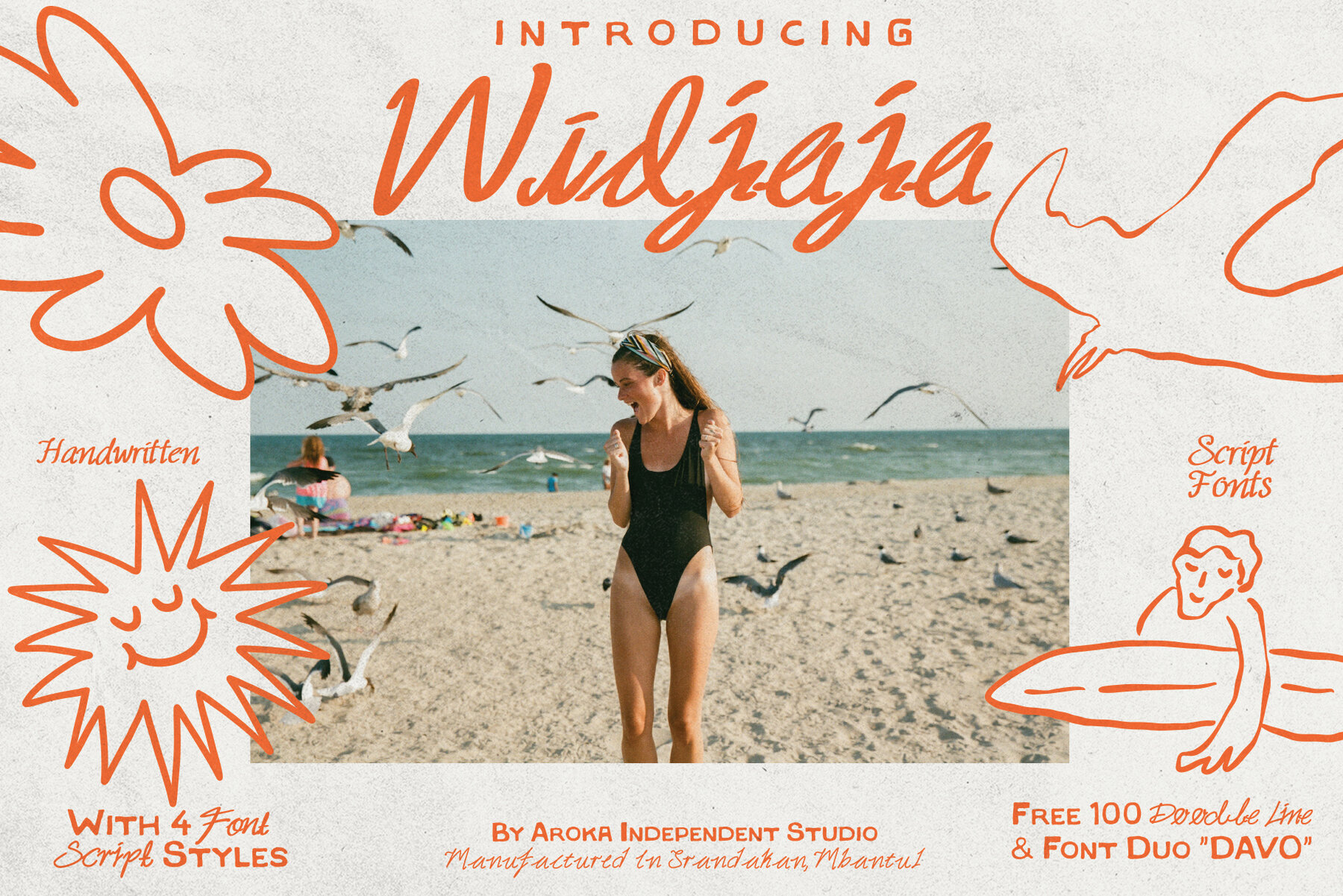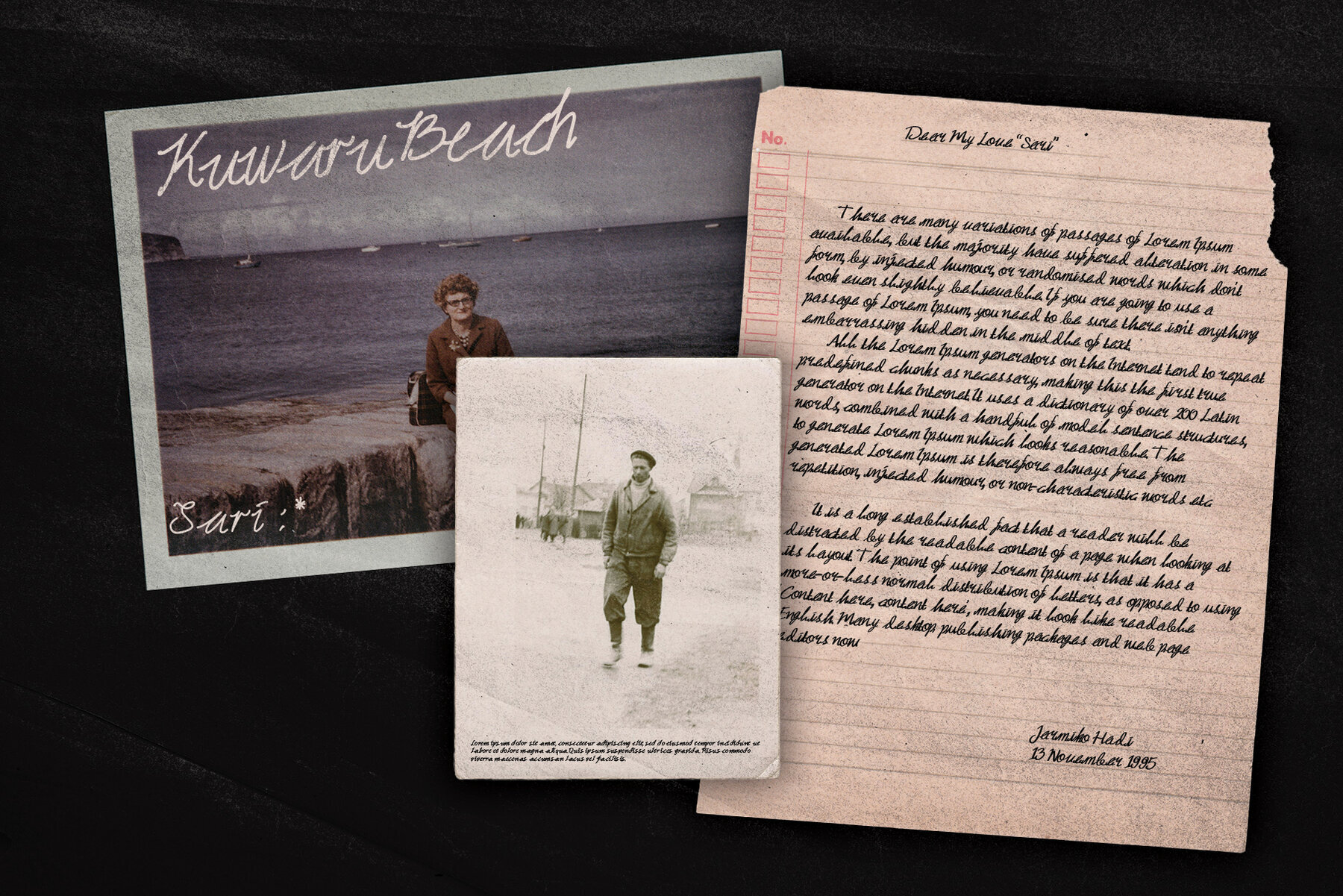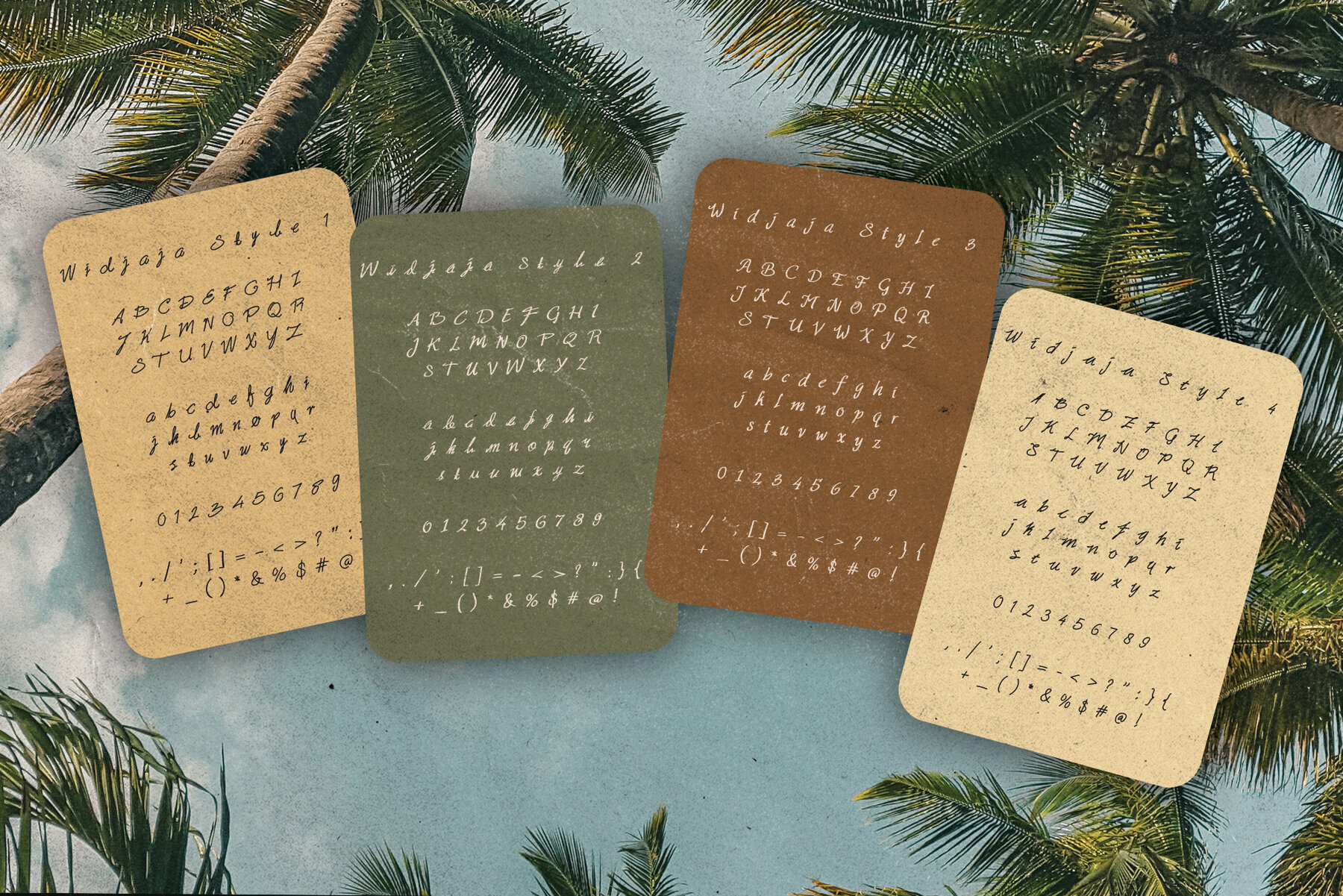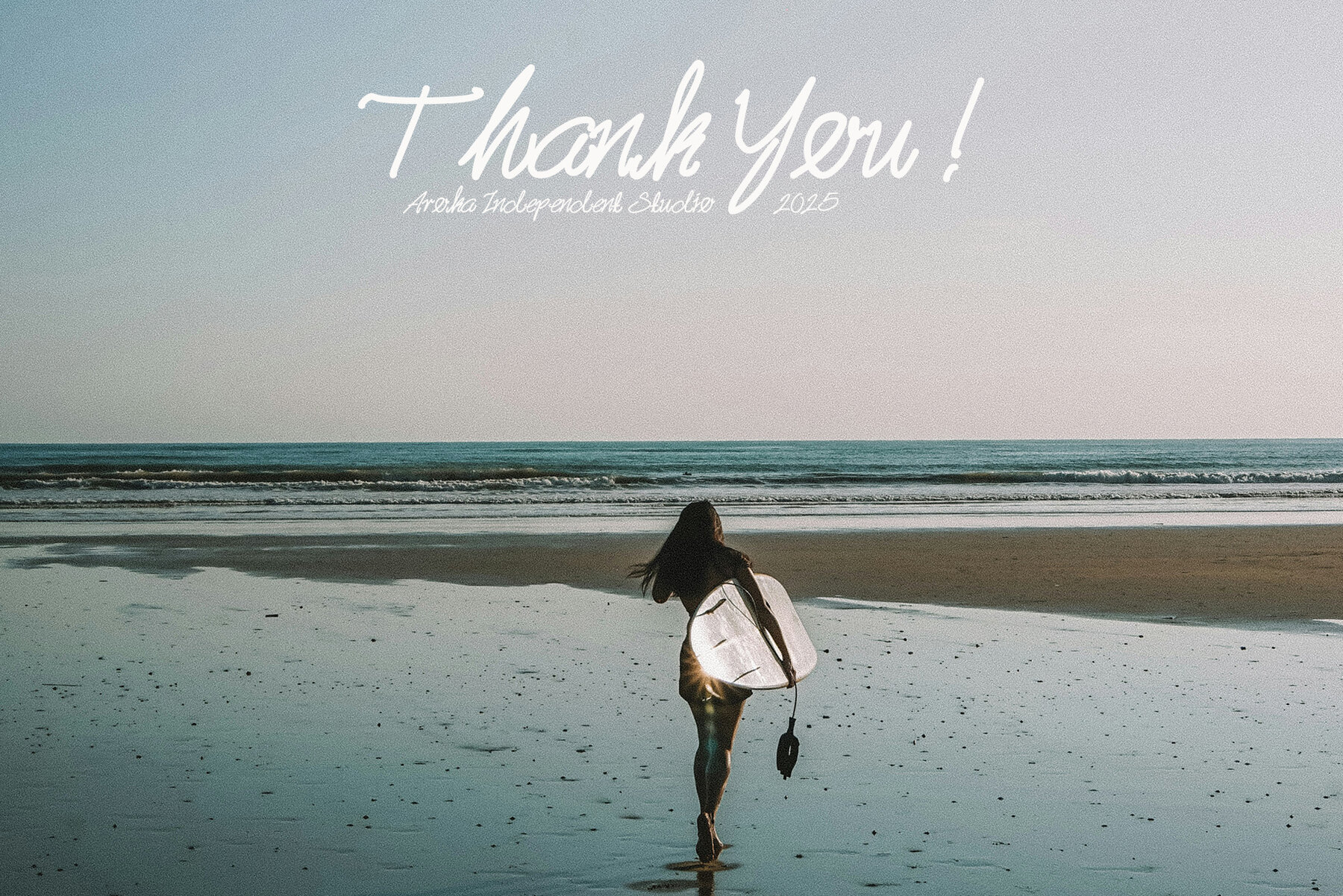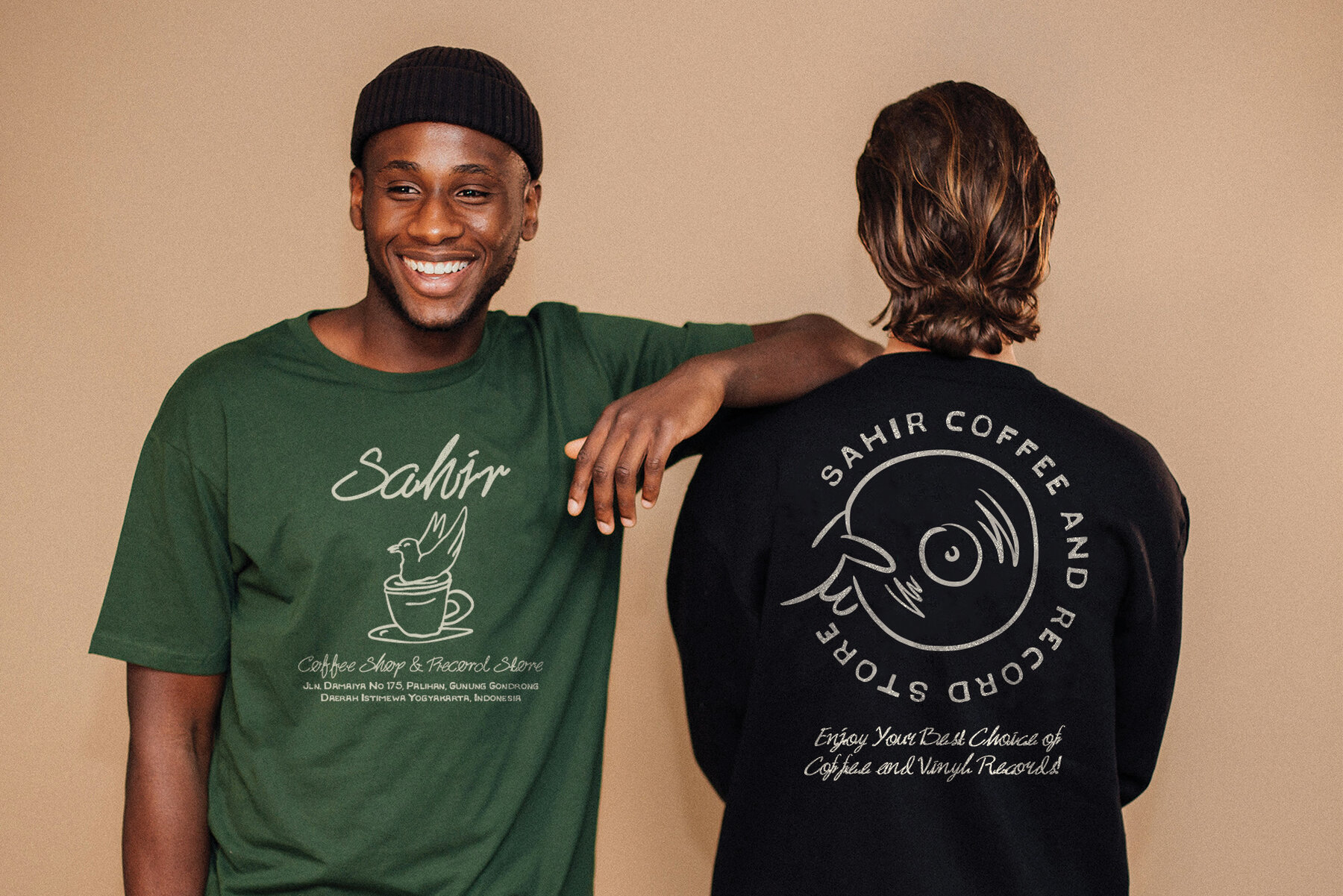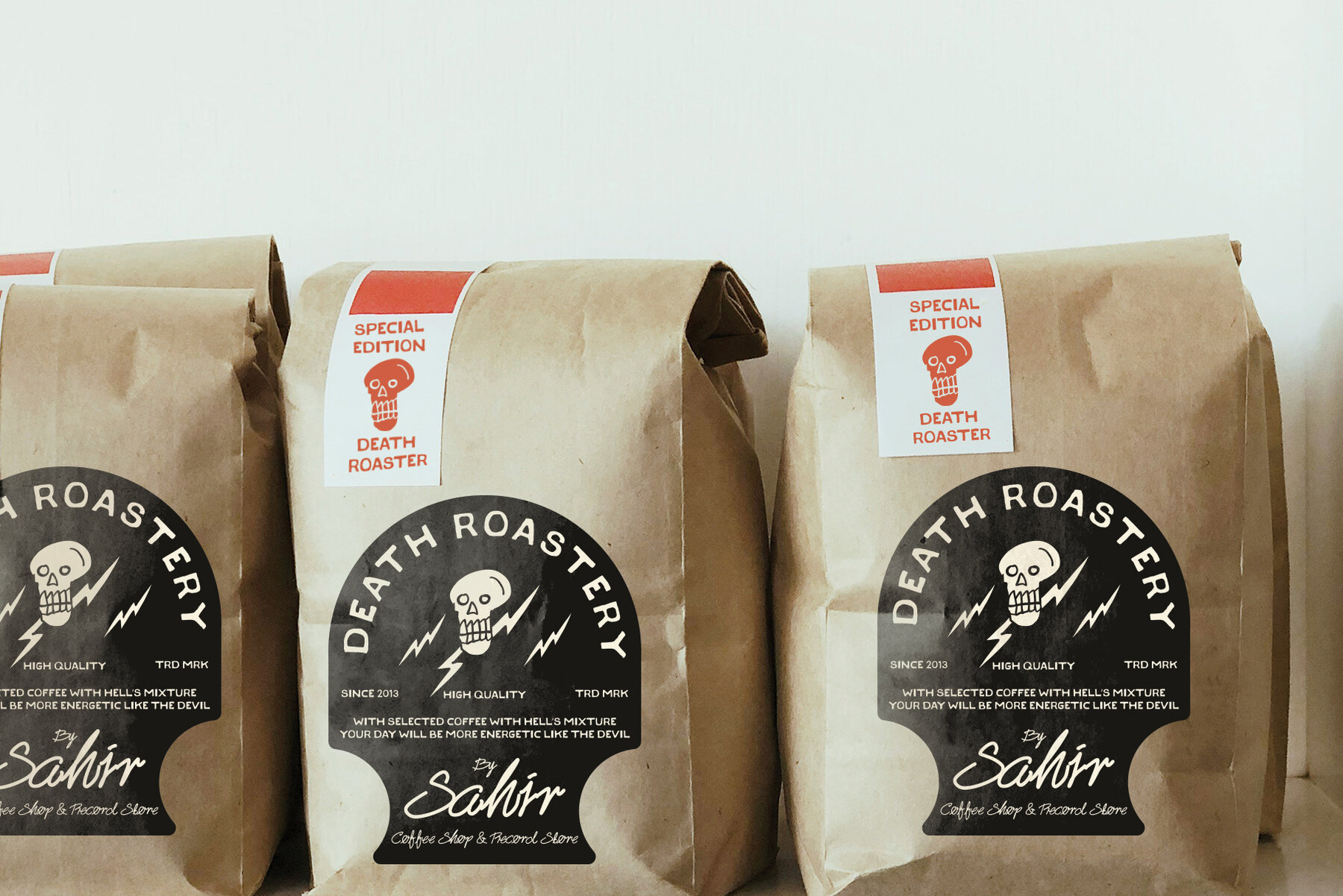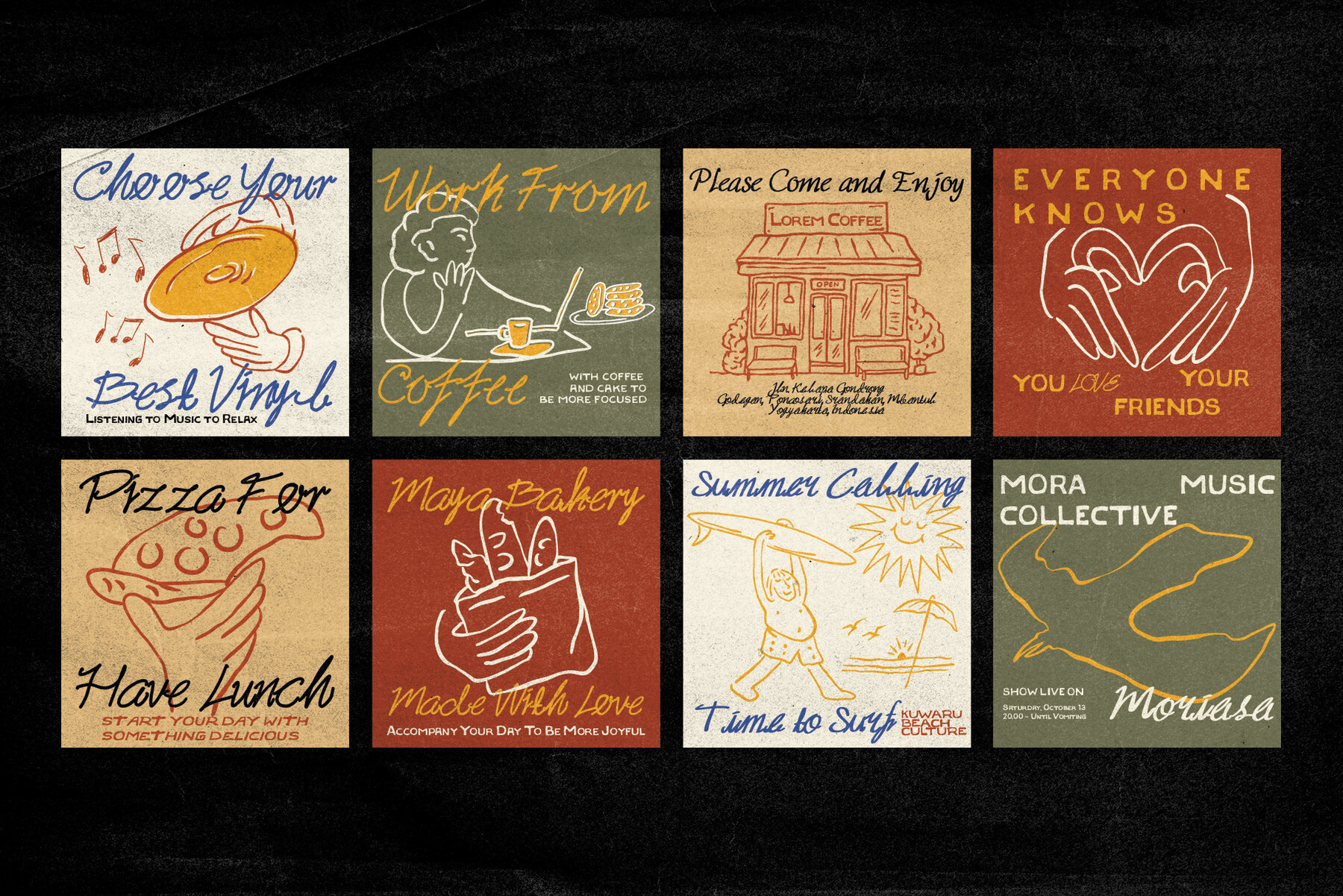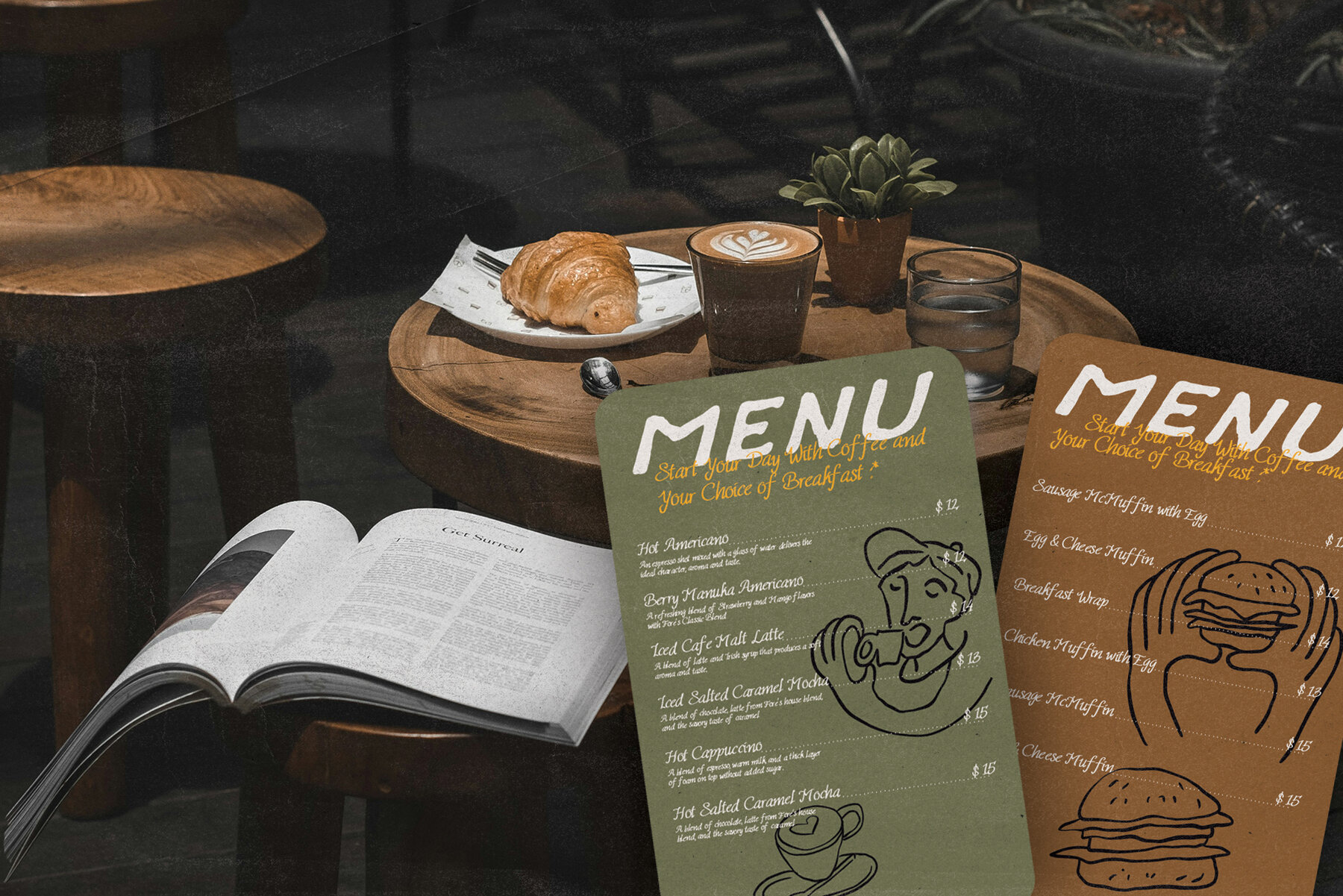
Widjaja Font
This font collection draws inspiration from a father's legacy in writing. The "Widjaja" font offers four distinct styles, complemented by the "Davo" vintage hand-drawn font duo. Additionally, the set includes a bonus of 100 hand-drawn icons available in Ai, PDF, SVG, and PNG formats for versatile design applications.Widjaja and Davo Font Collection: A Tribute to Vintage Elegance